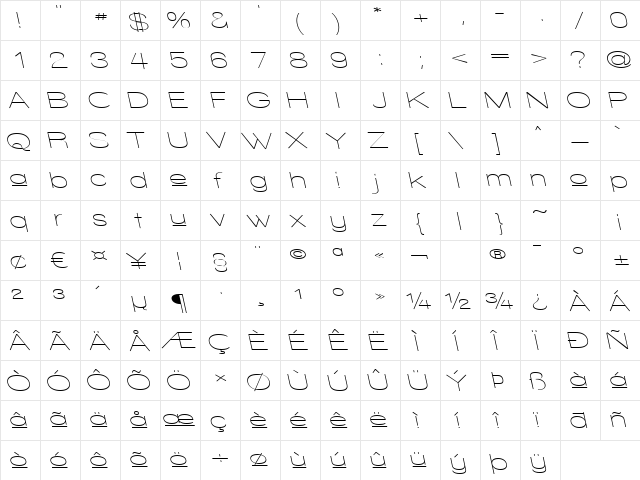
Walkway Upper Expand RevOb Regular Font Preview
Walkway Upper Expand RevOb Regular
Design Context for Walkway Upper Expand RevOb Typeface
Walkway Upper Expand RevOb is a composed and adaptable typeface that performs quietly and consistently across a wide range of design contexts.